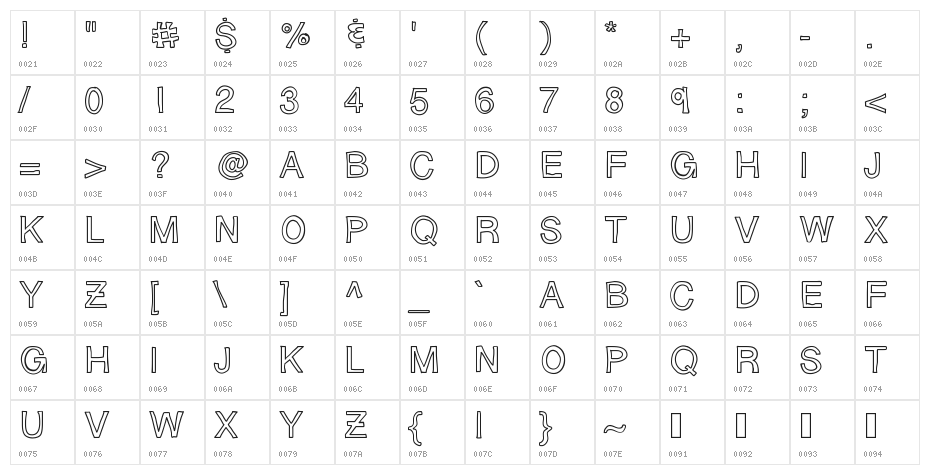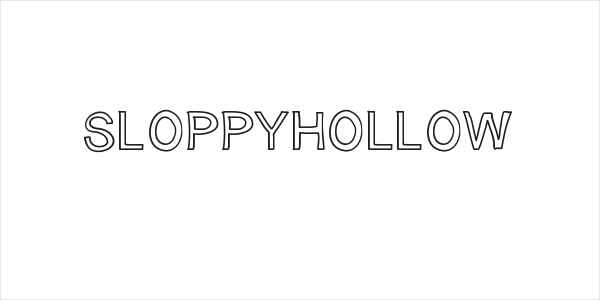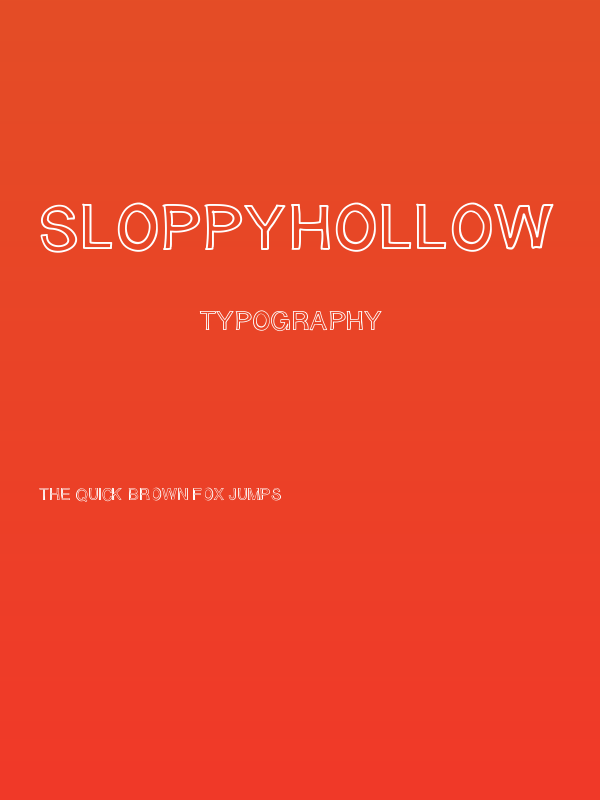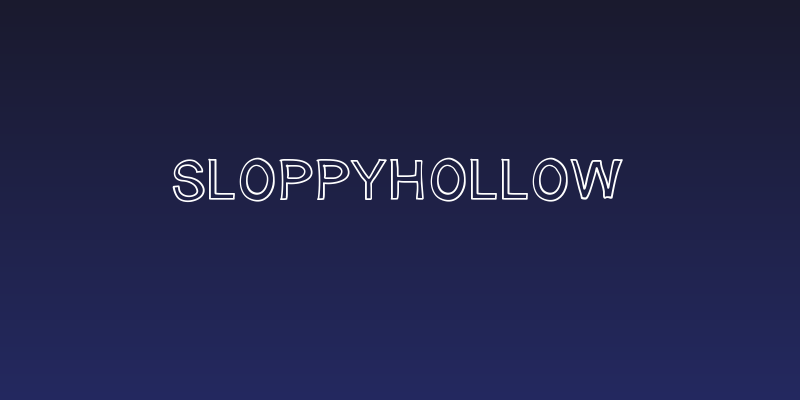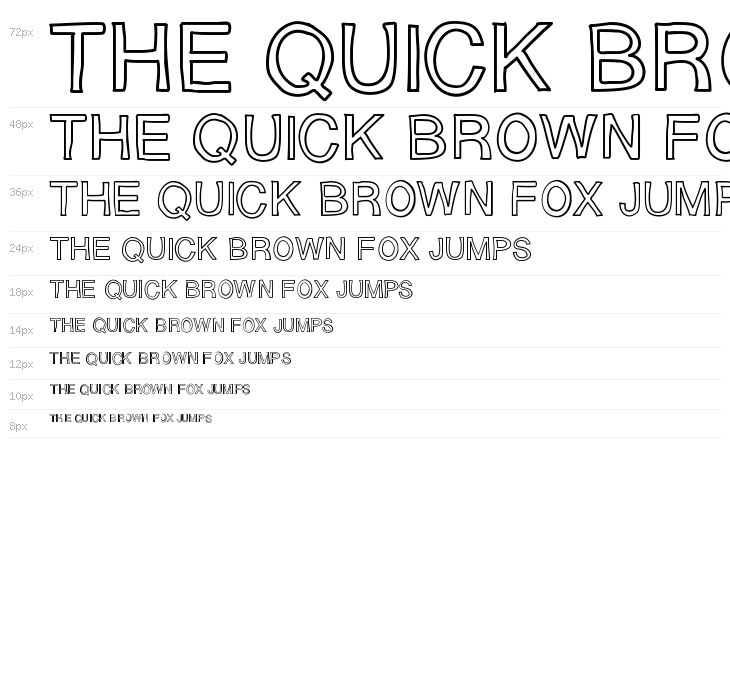
SloppyHollow Font
SloppyHollow Description
This font features a playful and bold outline style, characterized by its hollow interior and thick, uniform strokes. The letters are uppercase and maintain a consistent height, giving a balanced and structured appearance. The design is reminiscent of comic book lettering, with a casual and approachable feel. The numbers and special characters follow the same outline style, ensuring cohesion across all elements. This font's unique style makes it stand out, while still being legible and versatile for various design needs.
| Overall Style | Playful, Comic |
| Proposed Projects | Ideal for children's books, comic strips, playful branding, and eye-catching posters. |